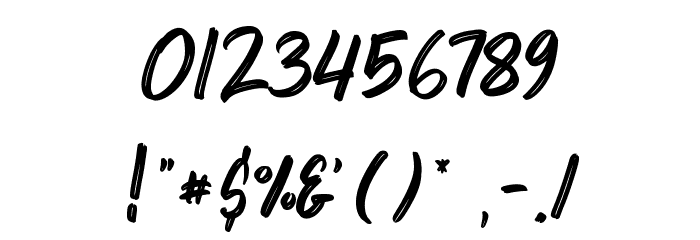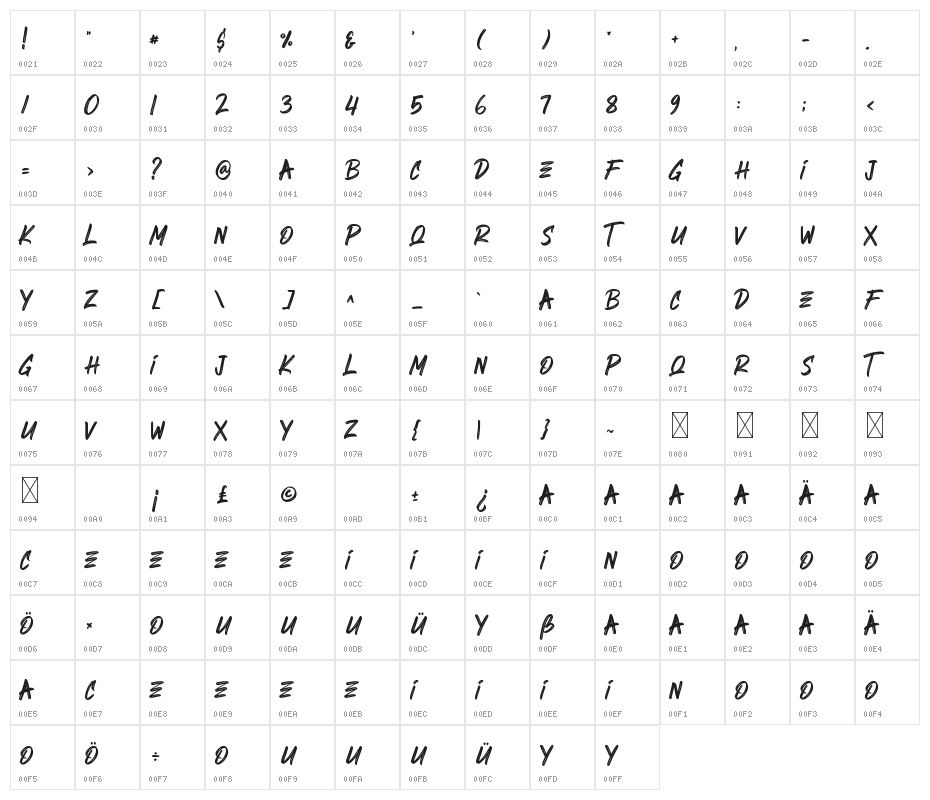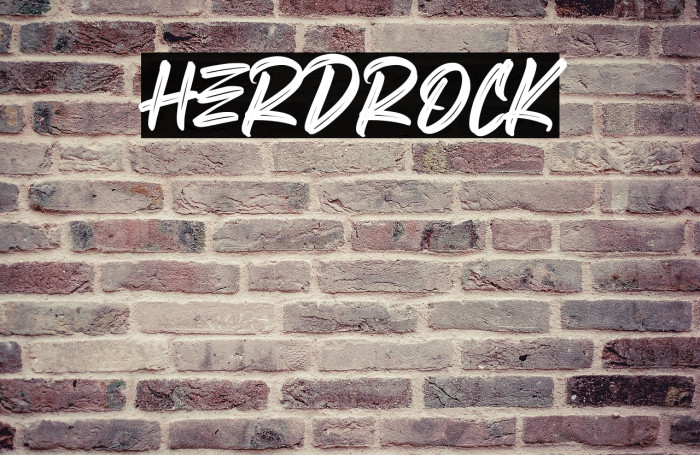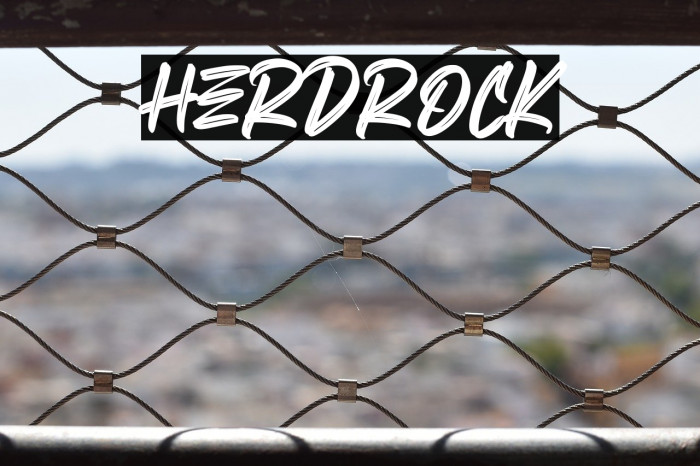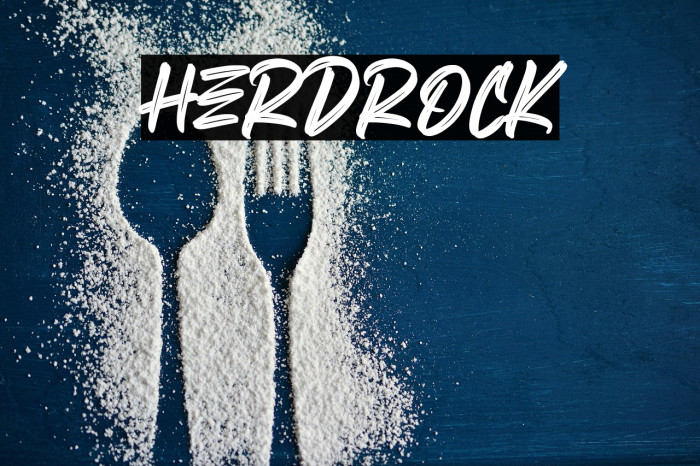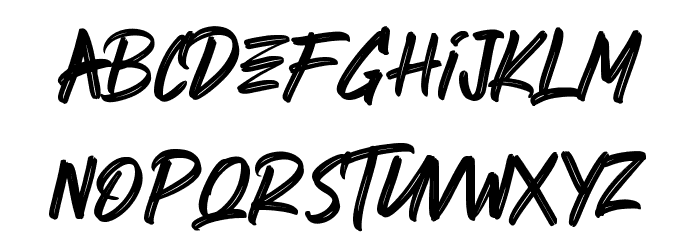
Herdrock Font
Herdrock Description
This font features a bold, energetic script style with a hand-drawn appearance. The letters are dynamic and slightly slanted, giving a sense of motion and fluidity. The strokes are thick and consistent, with a rough texture that adds a casual, artistic flair. The uppercase and lowercase letters maintain a cohesive style, while the numerals and special characters complement the overall aesthetic. This font is ideal for projects that require a lively and informal touch, such as posters, branding, and social media graphics.
| Proposed Projects | Posters, branding, social media graphics, event invitations, and merchandise designs. |